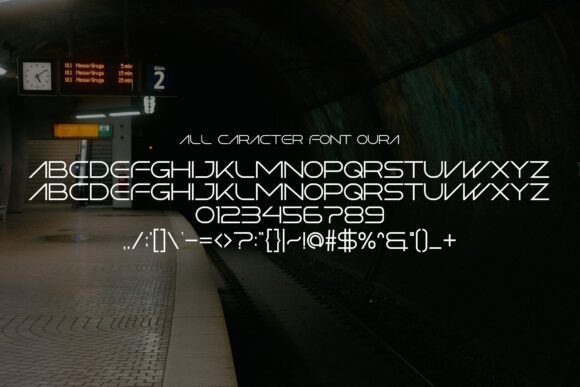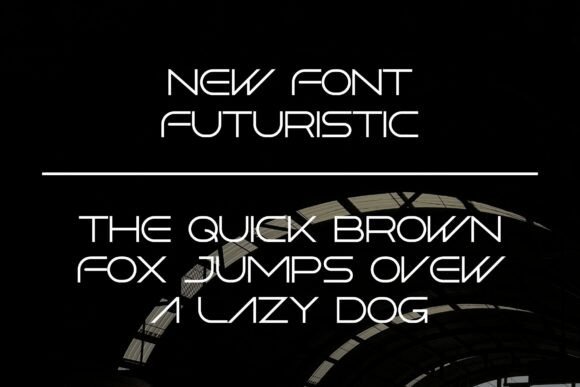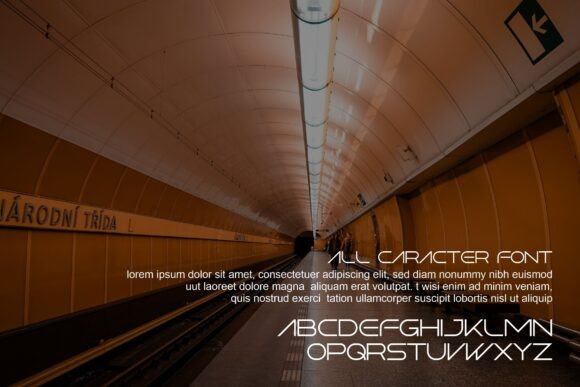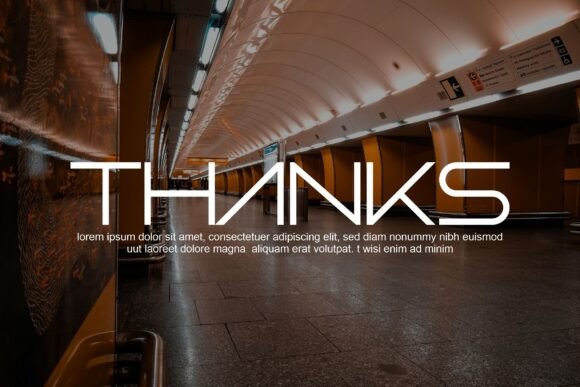
Introduction to Oura Font
Have you ever stared at a blank page, searching for the perfect font to bring your creative project to life? The struggle is real, but what if I told you that there’s a font that can make all the difference? Meet the Oura Font, a stunning sans serif typeface that’s about to become your new favorite design resource.
Imagine a font that’s both elegant and bold, versatile and sophisticated. A font that can elevate your wedding invitations, stationery art, social media posts, and more. The Oura Font is that and so much more. With its high-quality design and transparent background, it’s the perfect addition to any creative project.
Key Features of Oura Font
- High-quality design resource with a unique, elegant style, perfect for creative projects.
- Supports a wide range of languages, making it an excellent choice for global creative projects.
- Our unique font is designed to be highly legible, even at small font sizes, ensuring your text stands out.
Honest Review: Oura Font
As a designer, I’m always on the lookout for high-quality design resources to elevate my creative projects. Oura Font caught my attention with its sleek and modern aesthetic, and I was eager to put it to the test.
- ✨ The font’s transparent background makes it easy to layer and combine with other design elements.
- ✨ Oura Font comes in a range of weights, from light to bold, making it versatile for various design applications.
- ⚠️ The font’s design, while modern, may not be suitable for all types of projects (e.g., more traditional or vintage designs).
Overall, I’m impressed with Oura Font’s design and versatility. While it may not be perfect for every project, it’s definitely a solid addition to any designer’s toolkit. With a little creativity, Oura Font can help take your designs to the next level.
Oura Font is a high-quality design resource ideal for creative projects. This versatile font features a transparent background, making it perfect for use in various applications.
Tips for Getting the Most Out of Oura Font
To get the most out of Oura Font, use it in combination with other design elements to create a cohesive look. Experiment with different font sizes, colors, and styles to enhance the visual appeal of your design.
Oura Font is ideal for various design projects, including:
1. Logos and branding materials.
2. Social media graphics and posts.
3. Infographics and presentations.
4. Website and app design elements.